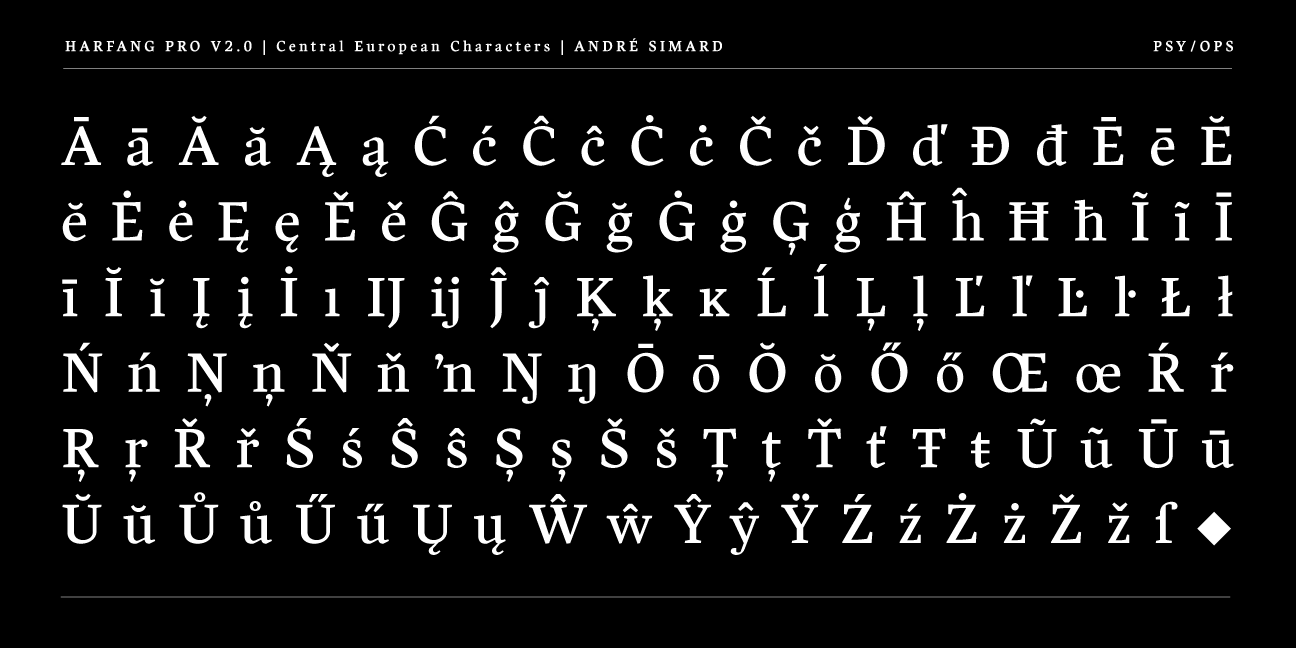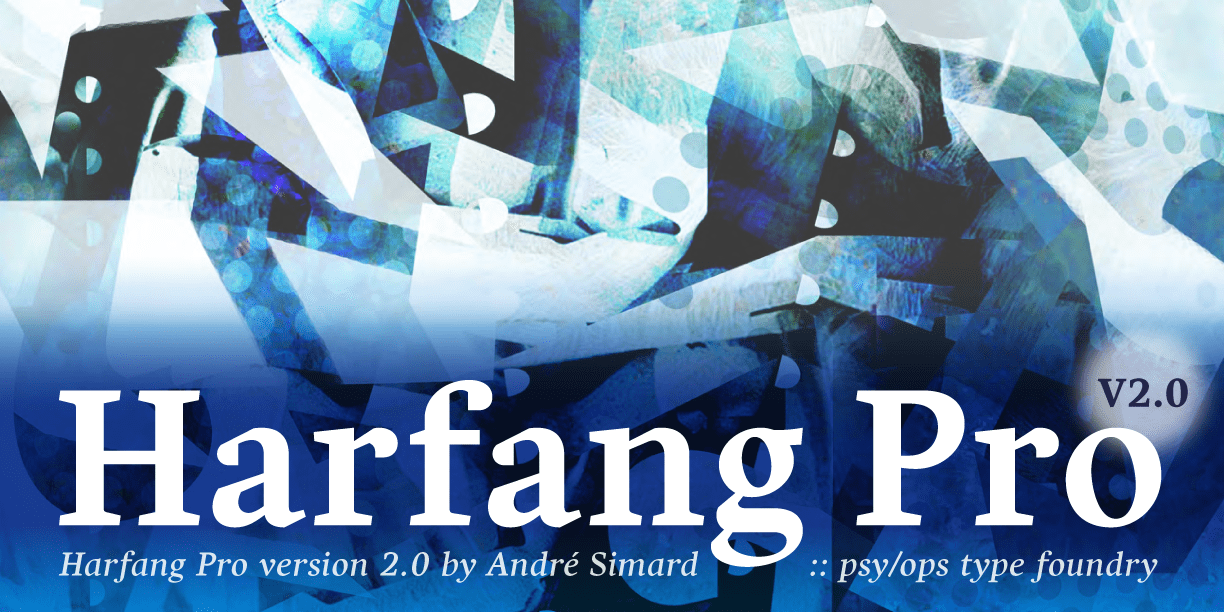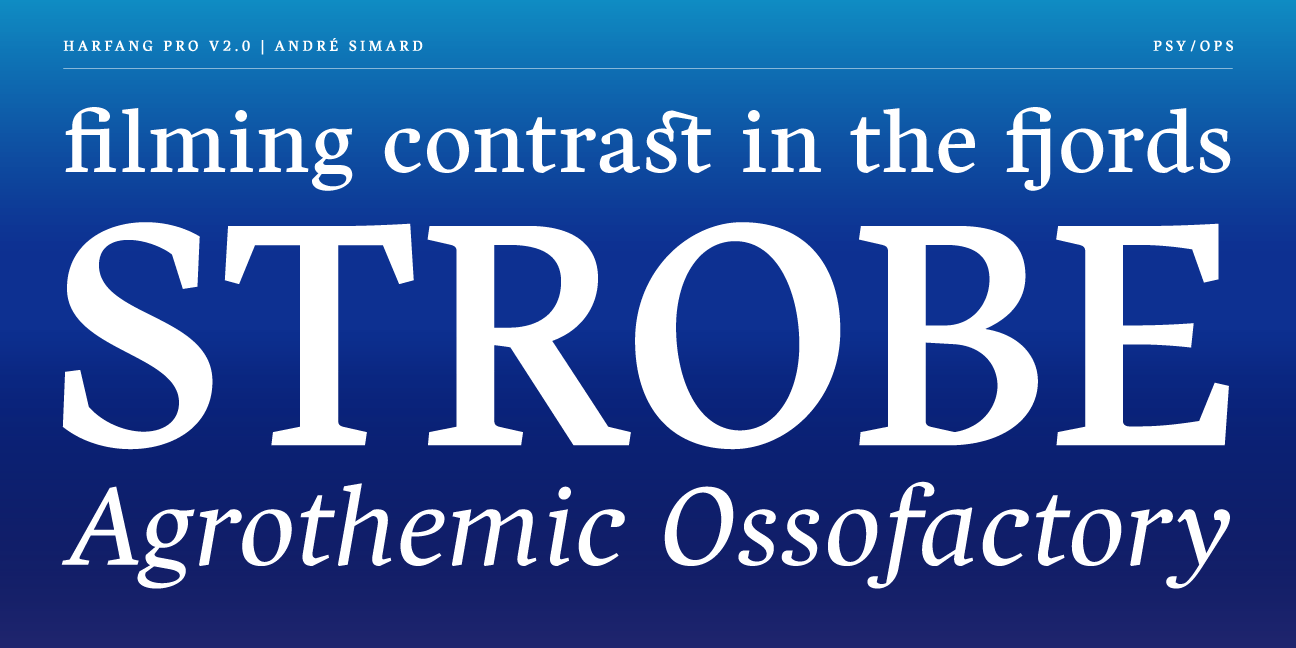
About Harfang Pro
My goal for Harfang was to create a serif typeface that would be easy to read in text sizes while having a strong personality in larger sizes. The initial design had a purely rounded style, but with each development pass, I introduced some angularity.…